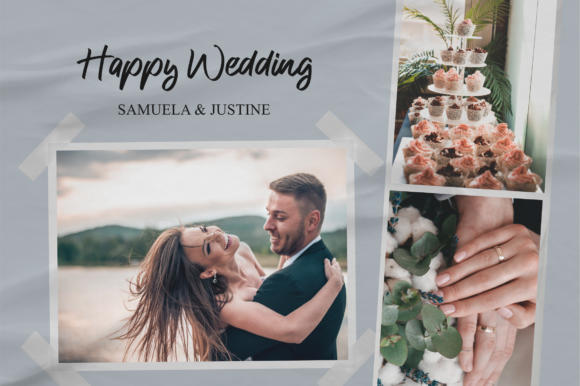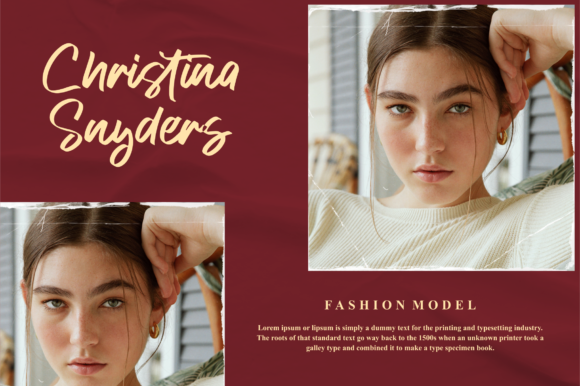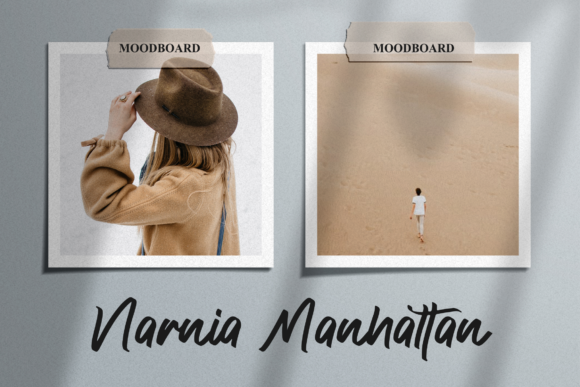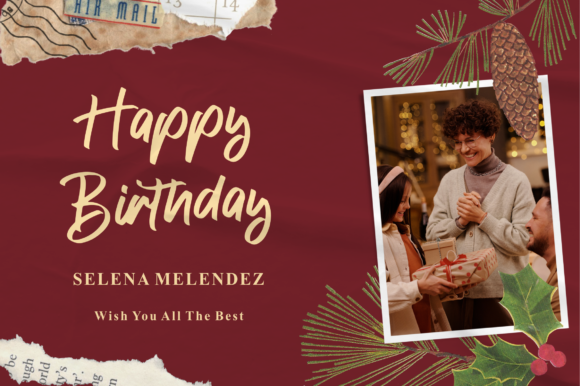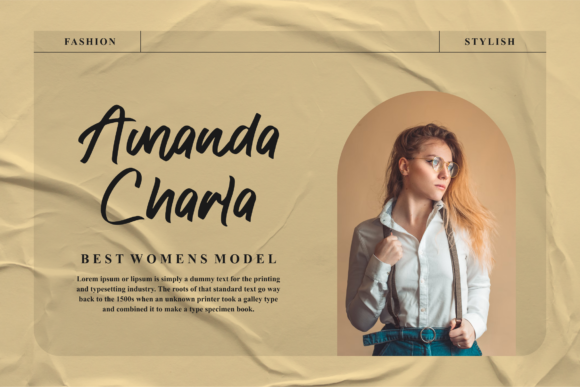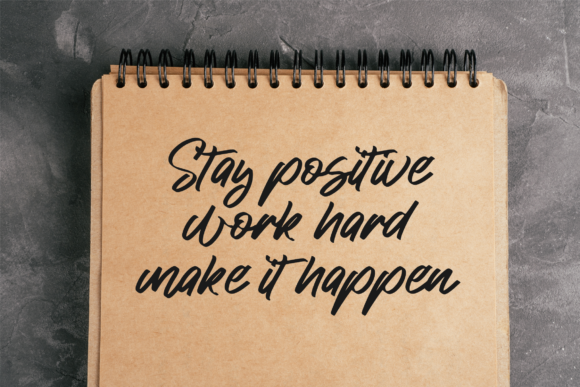
Introducing Canesster Font: Elevate Your Designs with Delicate Flair
In the world of typography, a font can make or break a design. For designers and crafters seeking a touch of elegance and sophistication, Canesster Font is an exceptional choice. This delicate and fashionable script font is perfect for a wide range of branding projects, from logos and t-shirt printing to creative products and more. With its unique charm, Canesster Font is poised to elevate your designs and leave a lasting impression.
The Characteristics of Canesster Font
Canesster Font boasts a distinctive, hand-crafted aesthetic that sets it apart from more traditional fonts. Its delicate lines and fashionable script style make it an ideal choice for designers looking to add a touch of whimsy and personality to their work. The font’s elegant flow and carefully crafted letterforms ensure that it remains legible, even at smaller sizes.
Perfect for Branding Projects
Canesster Font is incredibly versatile, making it suitable for a wide range of branding projects. Whether you’re designing a logo, creating custom t-shirts, or developing promotional materials, this font is sure to shine. Its unique style and flair will help your brand stand out from the competition, leaving a lasting impression on your target audience.
Why Designers and Crafters Love Canesster Font
So, what makes Canesster Font a favorite among designers and crafters? Here are just a few reasons:
- Delicate and Fashionable: Canesster Font’s script style adds a touch of elegance and sophistication to any design.
- Versatile: Perfect for a wide range of branding projects, from logos and t-shirts to creative products and more.
- Easy to Read: Despite its delicate nature, Canesster Font remains legible, even at smaller sizes.
- Unique: Canesster Font’s hand-crafted aesthetic ensures that your designs will stand out from the crowd.
Tips for Using Canesster Font
To get the most out of Canesster Font, consider the following tips:
- Pair with Bold Fonts: Combine Canesster Font with bold, sans-serif fonts for a striking contrast.
- Use for Headlines: Canesster Font’s elegant style makes it perfect for headlines and titles.
- Experiment with Colors: Try pairing Canesster Font with a range of colors to add depth and interest to your designs.
Canesster Font in Action
Imagine using Canesster Font for:
- Logo Design: Create a stunning logo that showcases your brand’s personality and style.
- T-Shirt Printing: Add a touch of elegance to your custom t-shirts with Canesster Font.
- Creative Products: Use Canesster Font to add a personal touch to your creative products, such as stickers, washi tape, and more.
In conclusion, Canesster Font is a delicate and fashionable script font that’s perfect for designers and crafters seeking to elevate their designs. With its unique charm, elegant flow, and versatility, Canesster Font is an exceptional choice for a wide range of branding projects. Whether you’re creating logos, custom t-shirts, or creative products, Canesster Font is sure to leave a lasting impression.